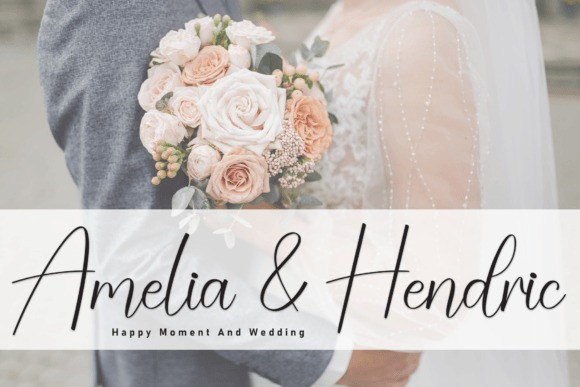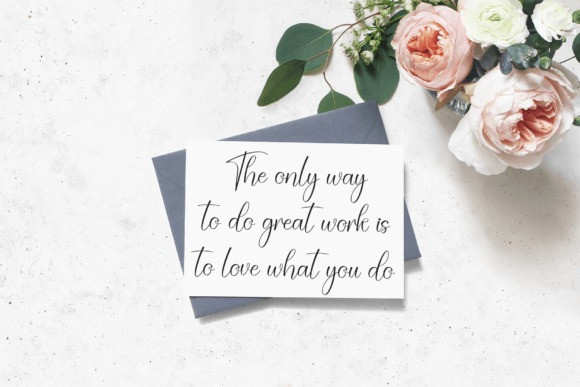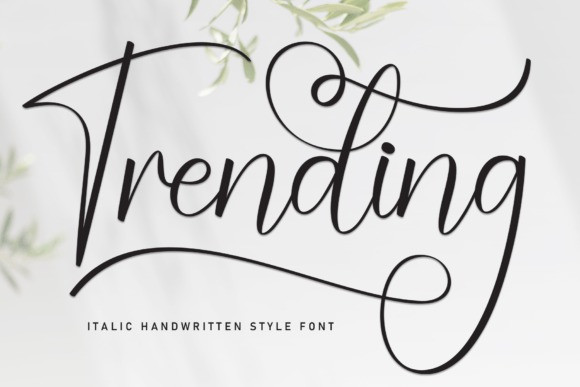
Trending Handwriting Font
Trending Handwriting Font is a flowing handwritten font, described by an elegant touch, perfect for your favorite projects. Fall in love with its incredibly distinct and timeless style and use it to create spectacular designs!